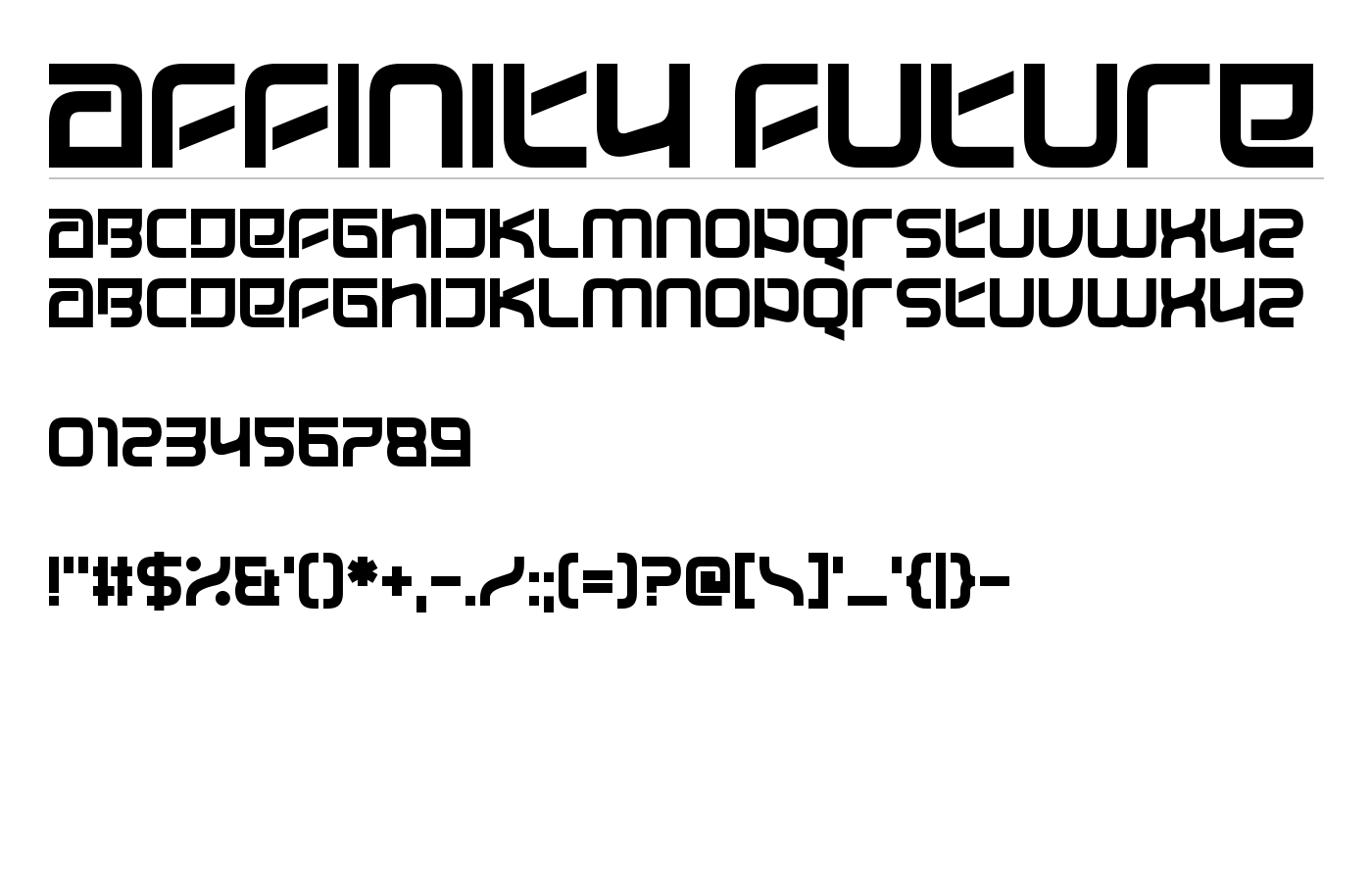
Affinity Future is a bold, geometric sans serif font with a futuristic, tech-inspired vibe. Its clean, squared shapes and consistent stroke weight create a modern and structured look, making it ideal for logos, headlines, and branding projects that want to convey innovation and forward-thinking style. This font works best in digital and editorial designs where a strong, distinctive personality is needed to stand out.
| Font family | Affinity Future Font |
| Designer | Allison J James |